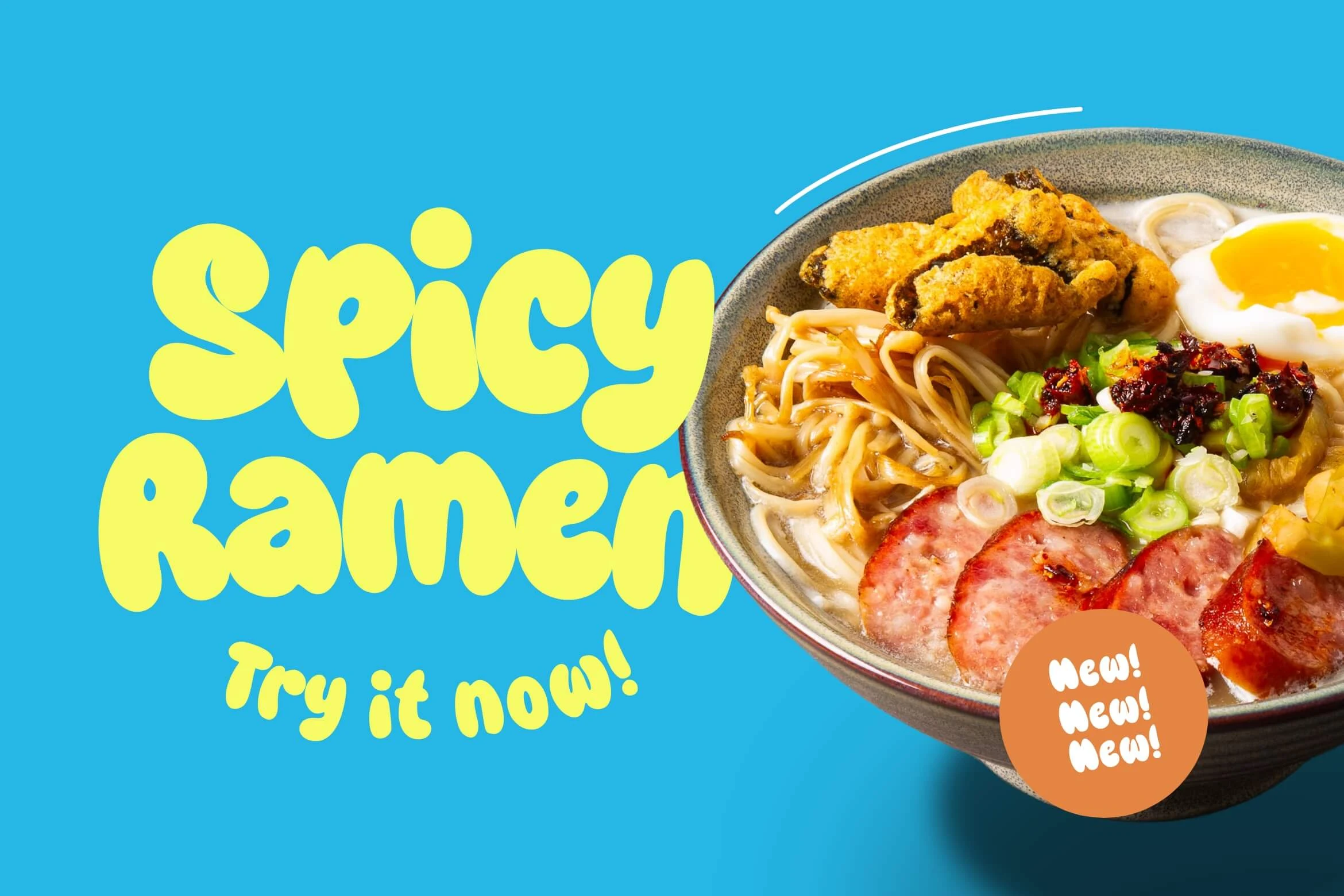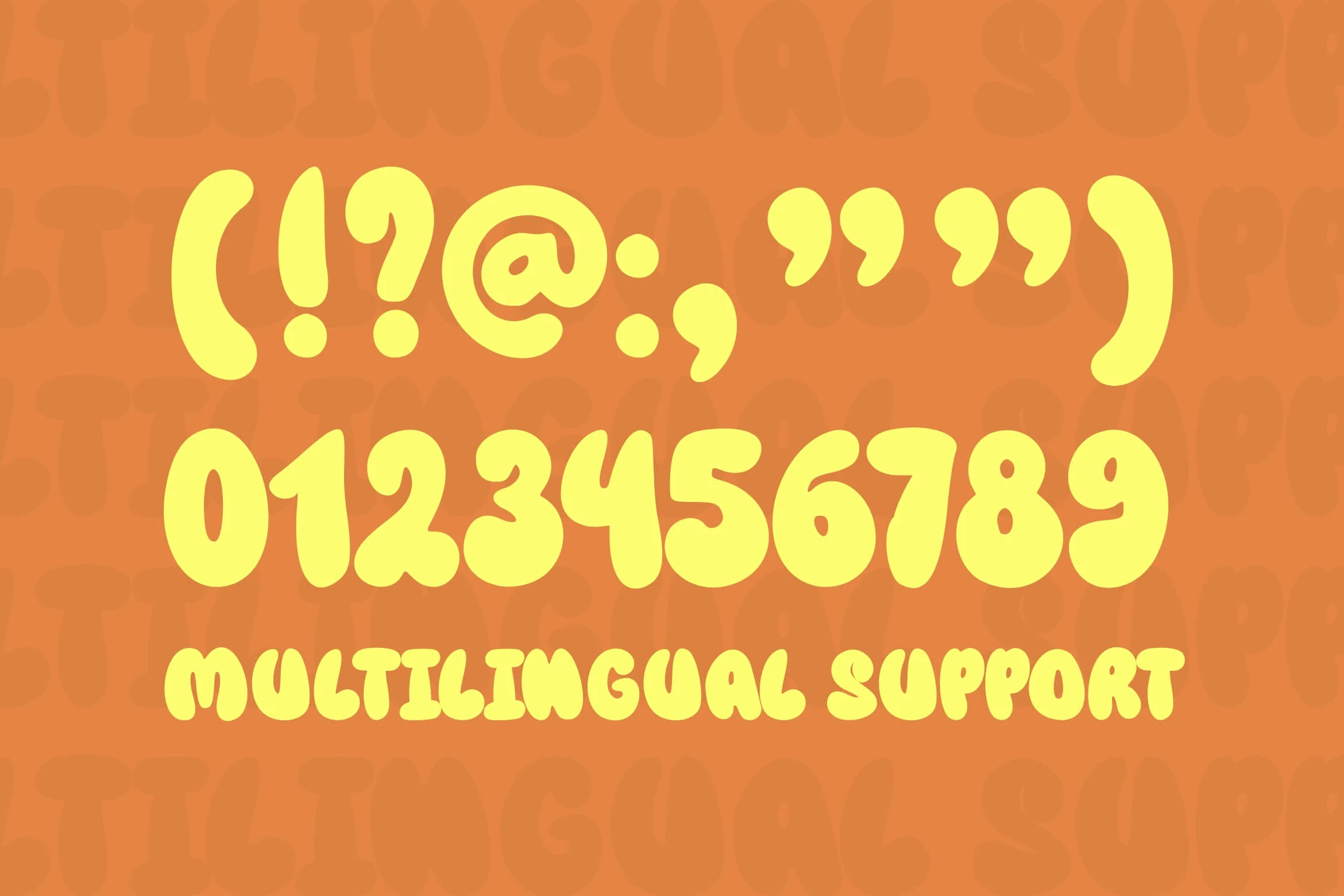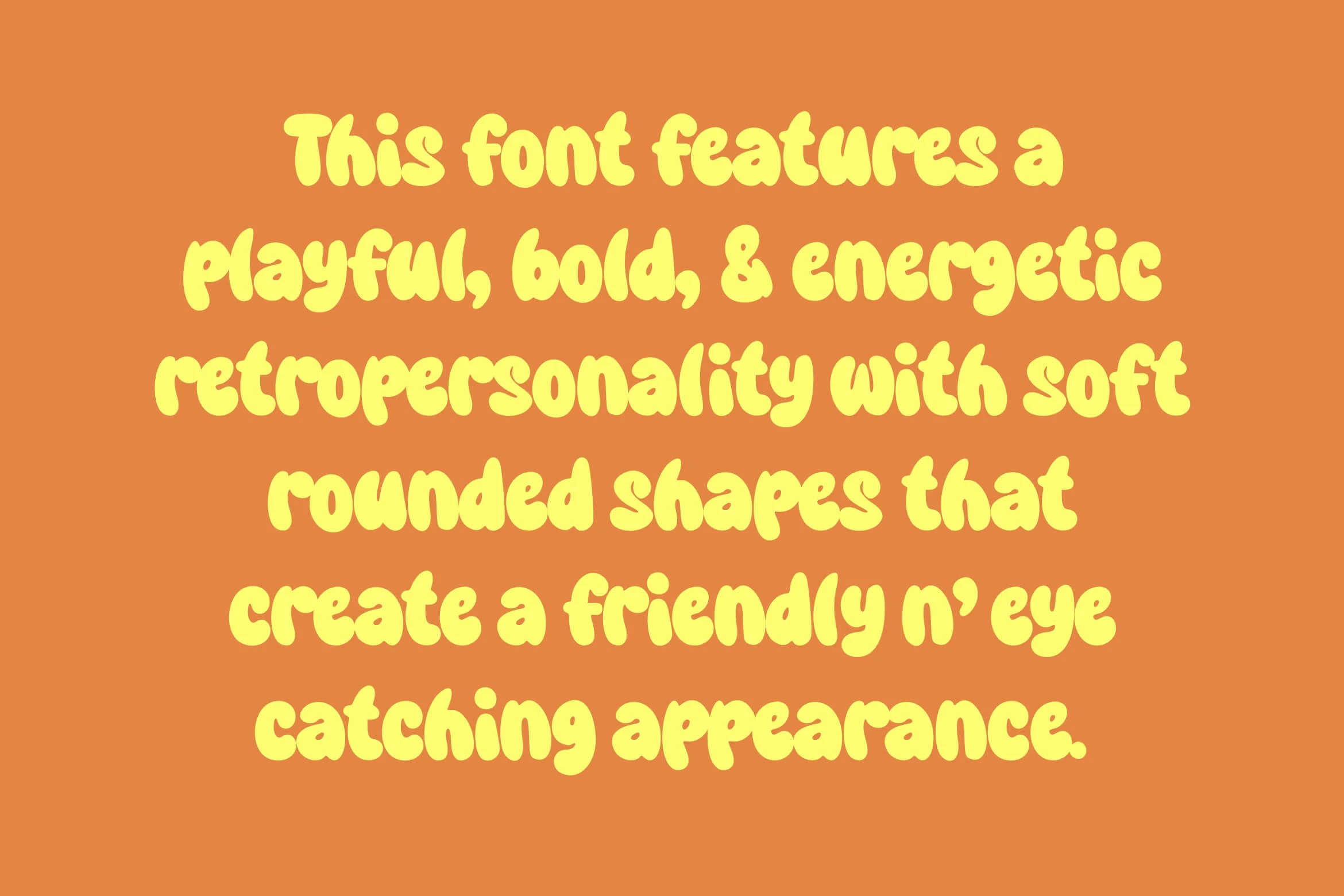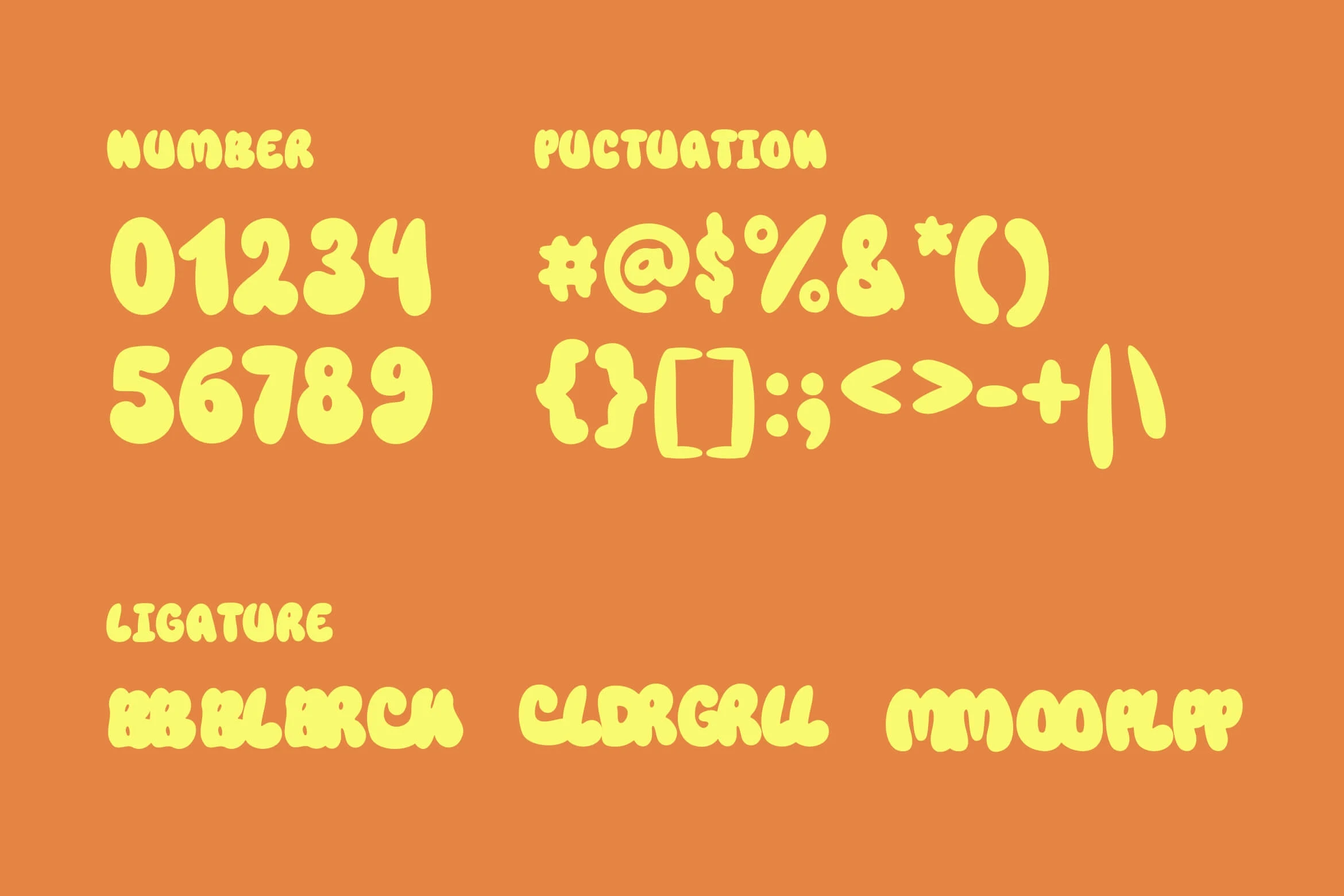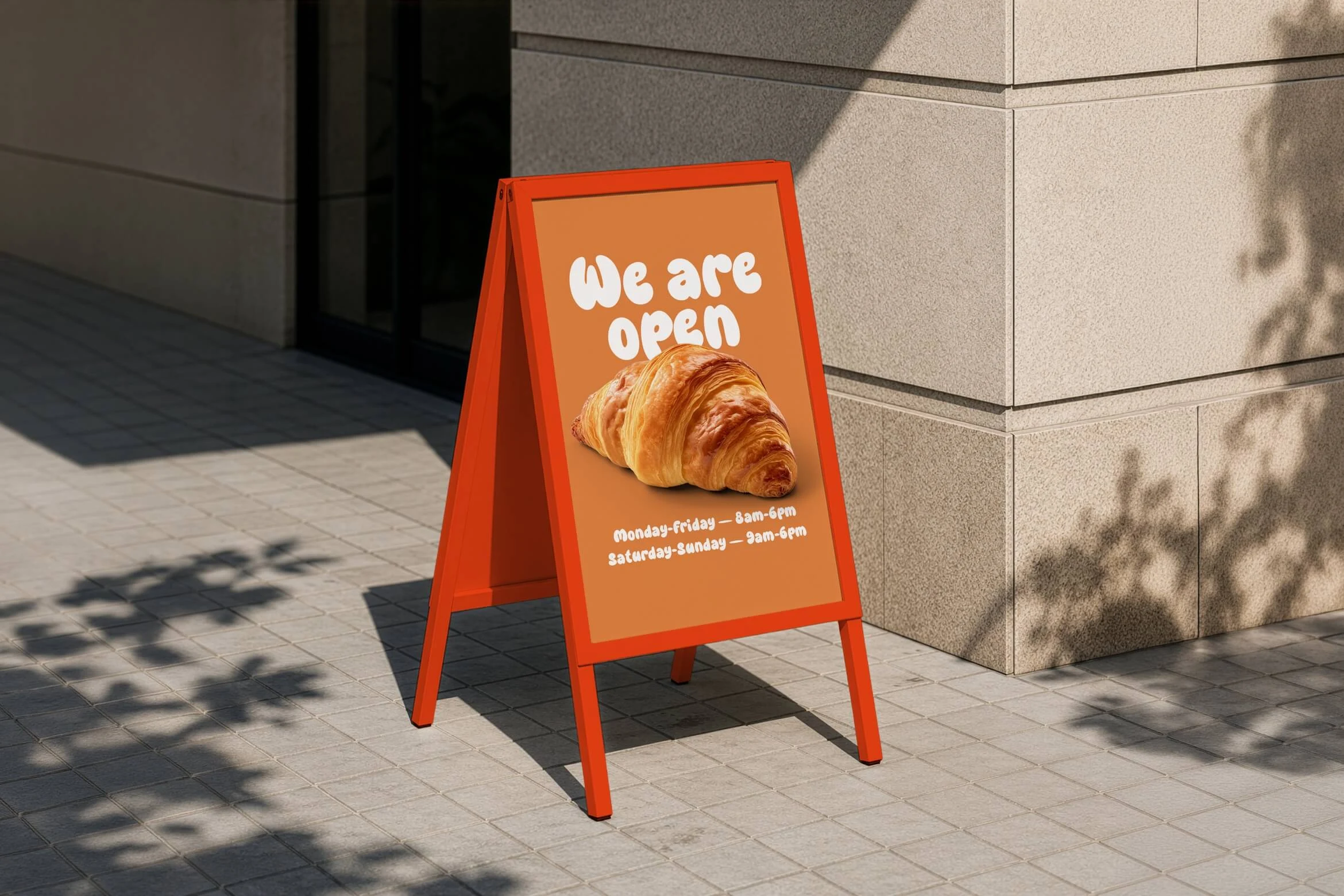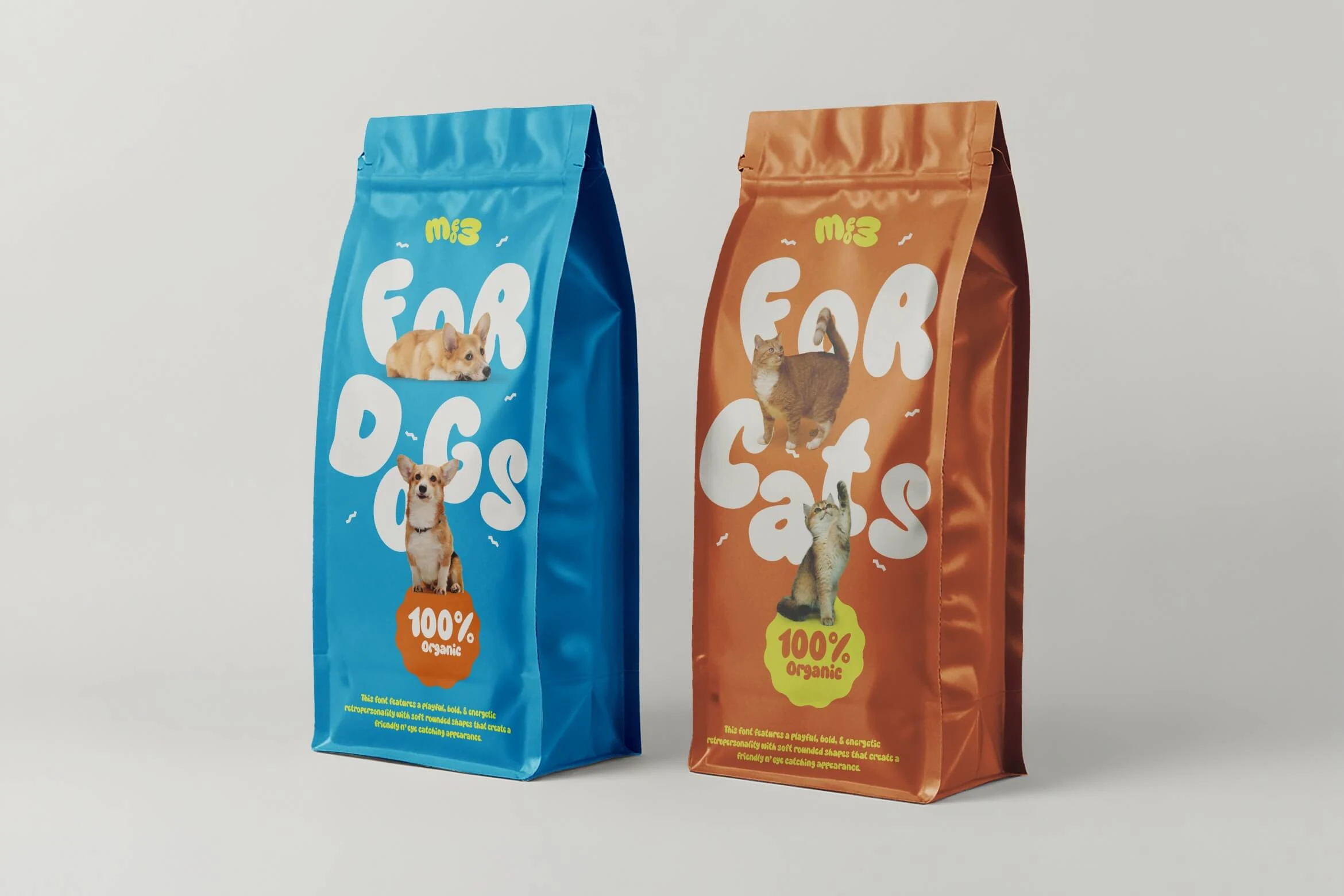
Melt Groof
Melt Groof is a chunky, bubble-style display font with soft rounded contours and a relaxed melted flow. Inspired by vintage Saturday morning cartoons and 70s–80s retro lettering, each character is drawn with thick, buoyant curves that give your typography a friendly, organic presence.
The bold letterforms hold their shape cleanly across large sizes, making Melt Groof a natural choice for playful headlines, sticker packs, children’s books, merchandise graphics, poster art, and creative brand identities. It brings a cheerful, nostalgic energy to your layouts while keeping every word easy to read.